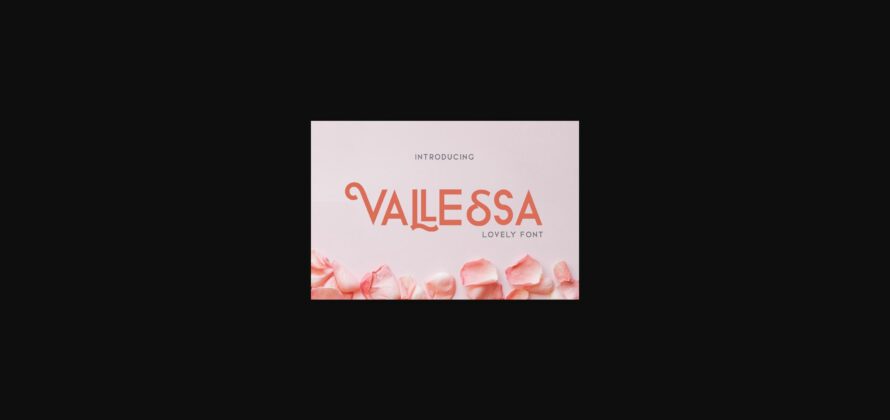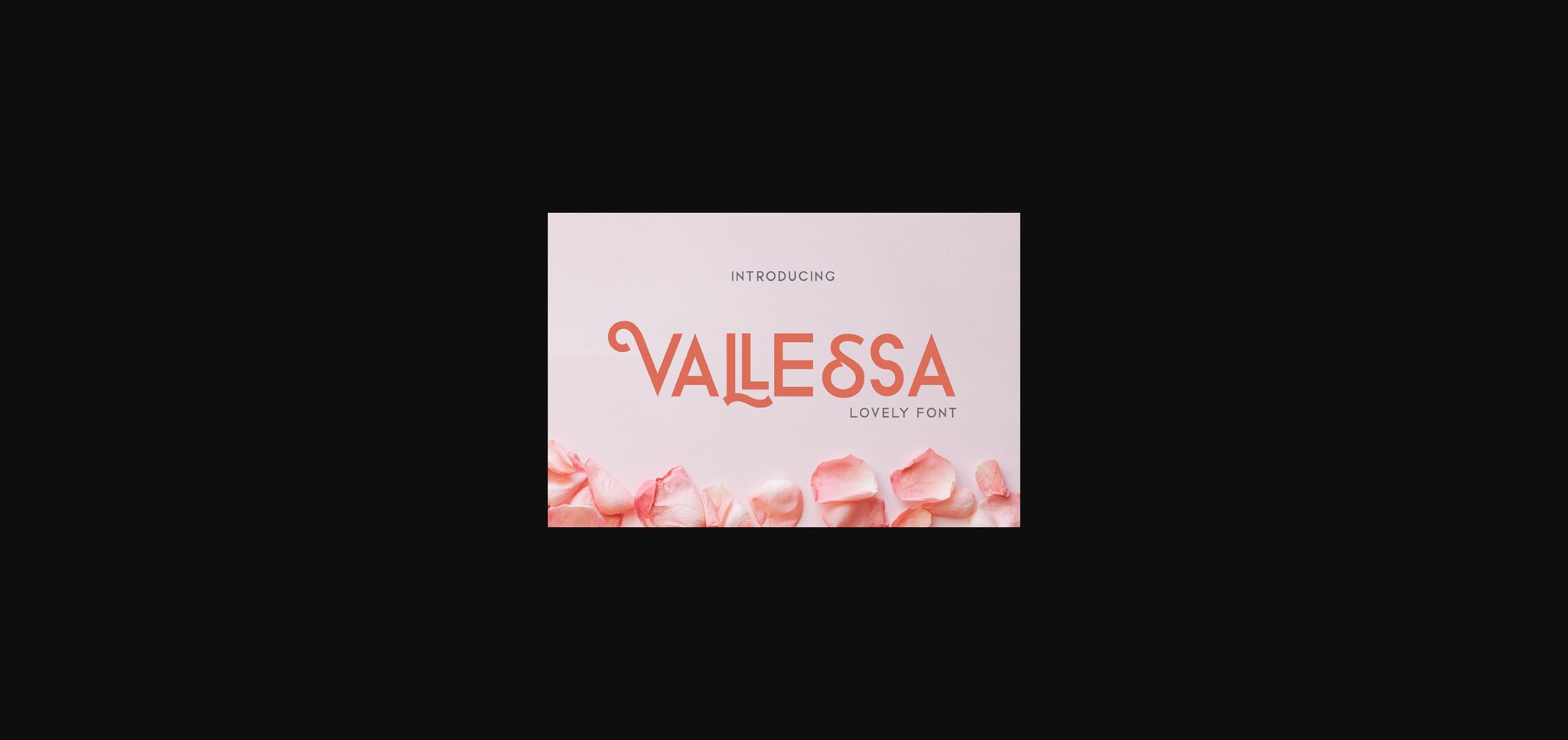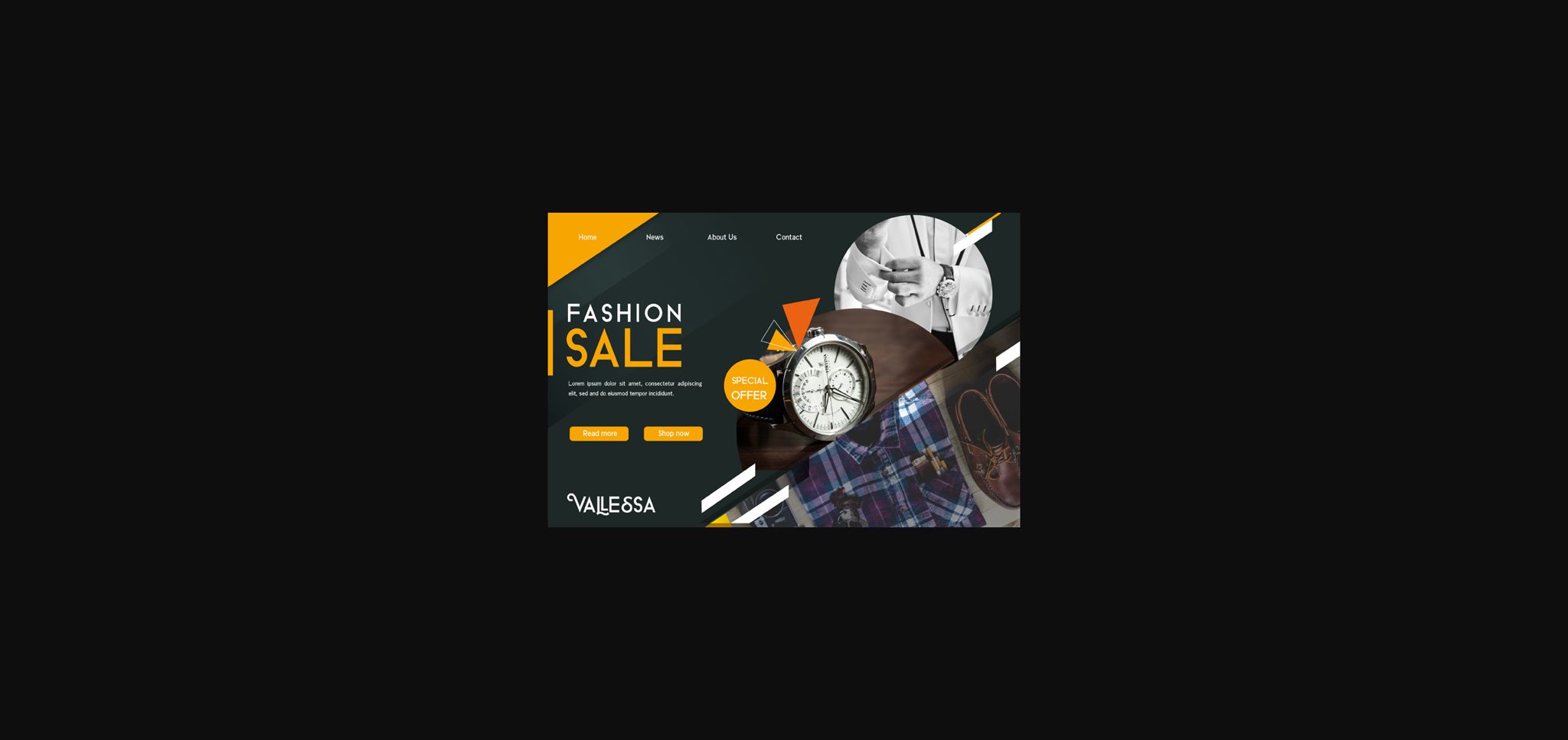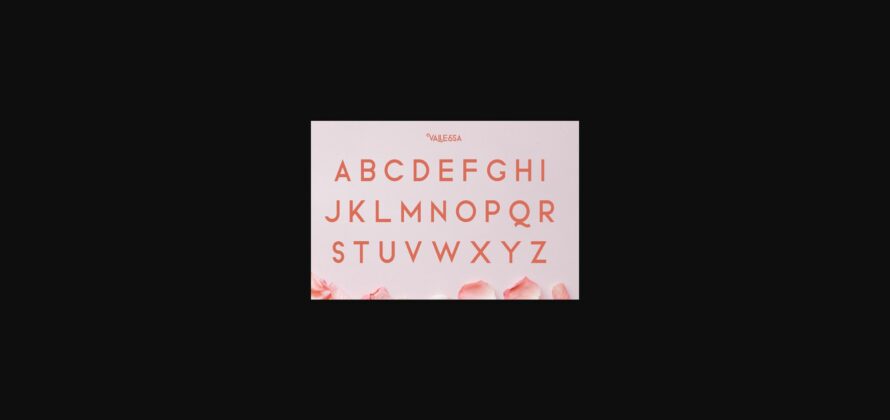
About Vallessa Font
Vallessa is a cool, vintage styled and elegant sans serif font. No matter the topic, this font will be an incredibly asset to your fonts’ library, as it has the potential to elevate any creation.